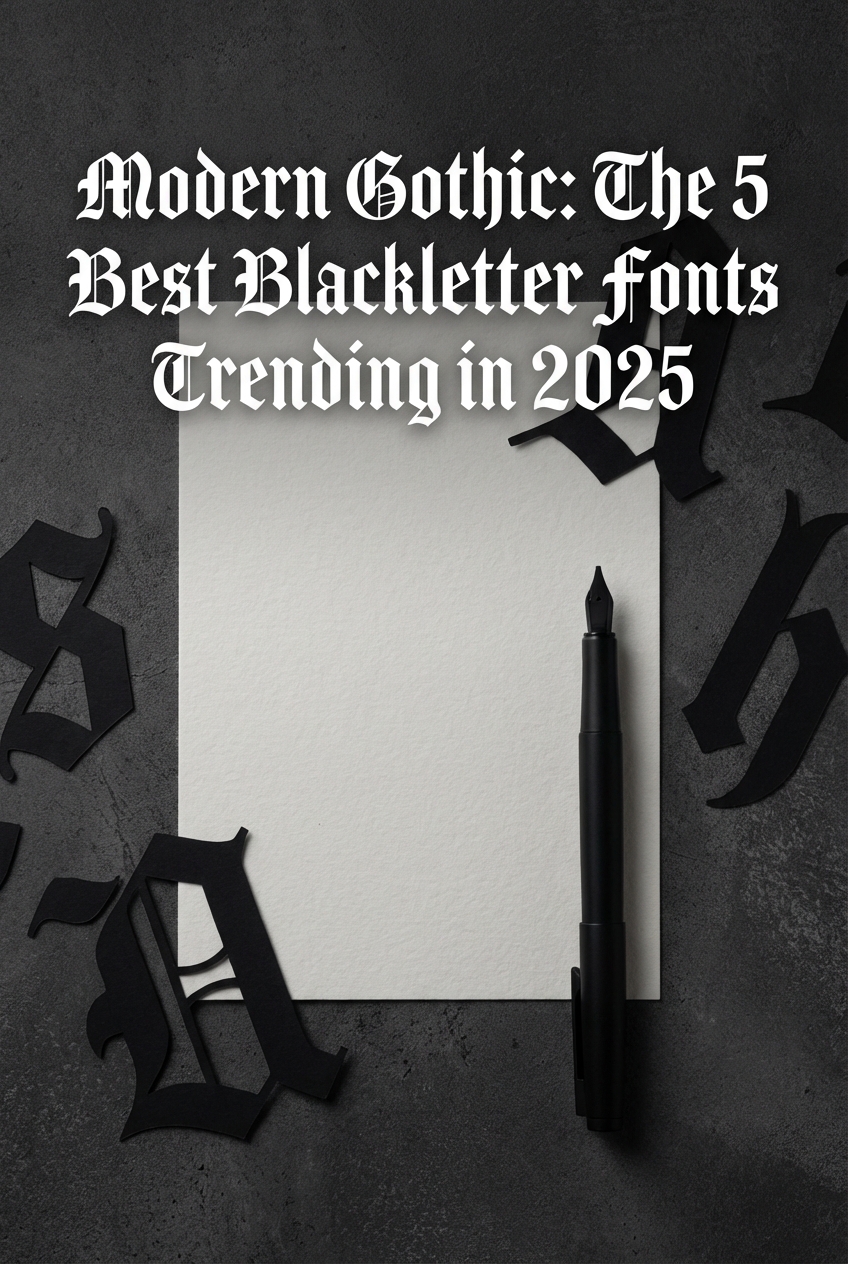
Once reserved for historical texts and heavy metal bands, Blackletter fonts are making a dramatic comeback in 2025. This resurgence sees designers and crafters embracing their bold, high-contrast forms to create powerful, modern aesthetics. From streetwear branding and editorial design to unique social media graphics, the Gothic style adds a touch of historical weight and rebellious edge. This trend perfectly blends tradition with contemporary cool. To help you stay ahead, we’ve curated the five most popular and versatile Blackletter fonts that are must-haves for your projects this year, delivering both impact and intricate beauty.
Top Collection Picks (2025-2026 Edition)
1. Beardsons
Beardsons delivers a powerful fusion of classic gothic structure and modern typographic clarity. Created by Arterfak Project, this blackletter font avoids feeling dated by embracing clean lines and a commanding presence, making it an essential asset for contemporary design.
Its sharp yet graceful aesthetic is precisely what makes it a key trend for 2025-2026, offering a timeless rebellion against minimalist fatigue while maintaining flawless readability.
- A full suite of stylistic alternates, swashes, and ligatures for bespoke lettering.
- Clean, high-contrast letterforms that balance historical weight with modern legibility.
- Comprehensive multilingual support for broad-reaching projects.
- Impeccable vector quality for flawless scaling from web to print.
- Streetwear apparel and high-impact brand logotypes.
- Modern packaging for craft beverages, spirits, and artisanal products.
- Editorial headlines, magazine titles, and poster design.
- Album art and tattoo-inspired graphic work.
2. Old English
Old English by The Tenacious Type Studio masterfully blends historical gravitas with sharp, contemporary execution. It avoids the overly ornate feel of traditional blackletter, offering a cleaner, more disciplined form that feels both powerful and incredibly sophisticated.
This refined approach makes it a standout choice for 2025 and beyond, where designers are seeking to merge classic typography with minimalist aesthetics for a look that is truly timeless.
- Classic blackletter architecture with refined, modern edges.
- A comprehensive character set including uppercase, lowercase, and punctuation.
- High-contrast strokes that maintain clarity across various sizes.
- Excellent vector quality for both crisp print and digital applications.
- High-impact branding for spirits, apparel, or artisan goods.
- Editorial headlines, magazine titles, and powerful poster designs.
- Packaging and logotypes that require a touch of heritage and authority.
- Modern tattoo lettering and digital album art.
3. Black Ink
Black Ink combines the gravitas of historical gothic scripts with the fluid energy of modern calligraphy. This font by Letter Stock delivers sharp, expressive letterforms that feel both timeless and incredibly current, capturing the raw elegance that defines today’s most compelling designs.
As the trend towards maximalist and heritage-inspired typography continues to rise, Black Ink stands out as an essential asset for any 2025-2026 design toolkit, offering a sophisticated yet rebellious edge.
- Crisp, high-contrast strokes with an authentic, handcrafted texture.
- A complete set of stylistic alternates and ligatures for versatile typographic compositions.
- Thoughtfully balanced kerning that ensures readability even in complex layouts.
- Full multilingual support for broad, international application.
- Streetwear apparel and contemporary merchandise.
- High-end packaging and luxury brand identities.
- Editorial headlines, posters, and album artwork.
- Bold logotypes that require a touch of refined attitude.
4. Stanford Breath
Stanford Breath combines the historic weight of blackletter with a distinctly modern, airy feel. This font, created by Arterfak Project, feels both timeless and perfectly attuned to the sophisticated, high-contrast aesthetics we’re seeing emerge for 2025 and beyond.
Its sharp, clean lines and elegant flow make it a standout choice for designers looking to blend classic structure with fresh, contemporary energy.
- A full set of stylistic alternates and ligatures for creating custom, dynamic typography.
- Balanced letterforms that maintain readability even with intricate gothic detailing.
- A hand-drawn, calligraphic feel that adds an authentic, human touch to digital designs.
- Includes multilingual support for broad, international project use.
- Luxury branding, spirit labels, and high-end packaging.
- Impactful editorial headlines and magazine logotypes.
- Sophisticated wedding invitations, certificates, and formal stationery.
- Modern apparel graphics and tattoo-inspired art.
5. Nightmare Gothic
Nightmare Gothic by Rvq Type Foundry is a masterclass in modern blackletter design. It merges the stoic grandeur of traditional Gothic script with a sharp, contemporary edge, making it an undeniable force in typography.
Incorporating a Blackletter font is a surefire way to add character and unapologetic drama to your designs. These top 5 selections for 2025 offer the perfect blend of classic structure and modern usability for any project. Go ahead, embrace the darkness and create something truly unforgettable.